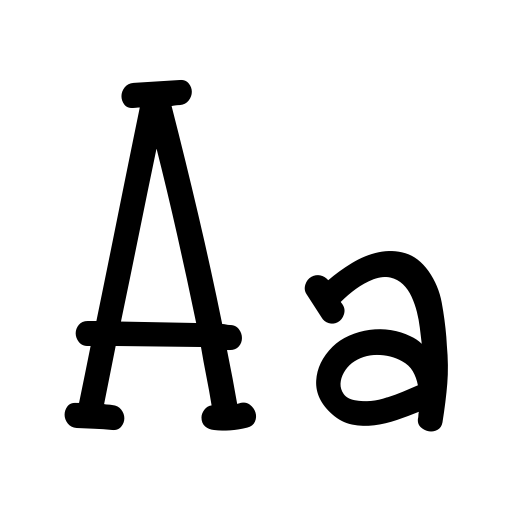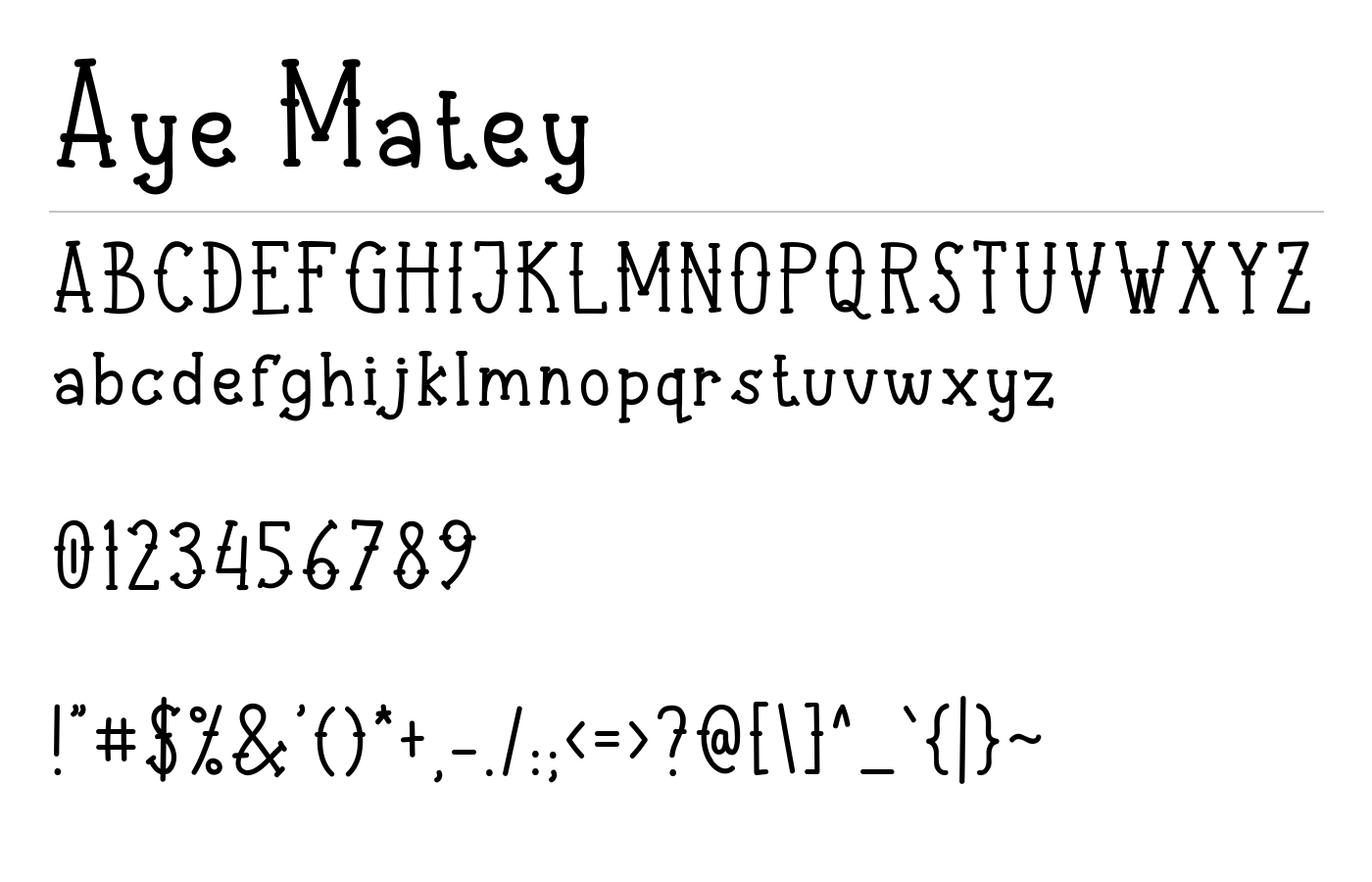
Aye Matey is a playful, decorative serif font with a quirky, hand-drawn feel that evokes a whimsical, vintage charm. Its narrow, tall letterforms feature irregular strokes and rounded serifs that create a fun, casual personality perfect for pirate-themed designs, children’s books, or informal branding. This font works best in headlines, logos, or creative projects where a lighthearted and distinctive style is desired.
Aye Matey Font
About Aye Matey Font